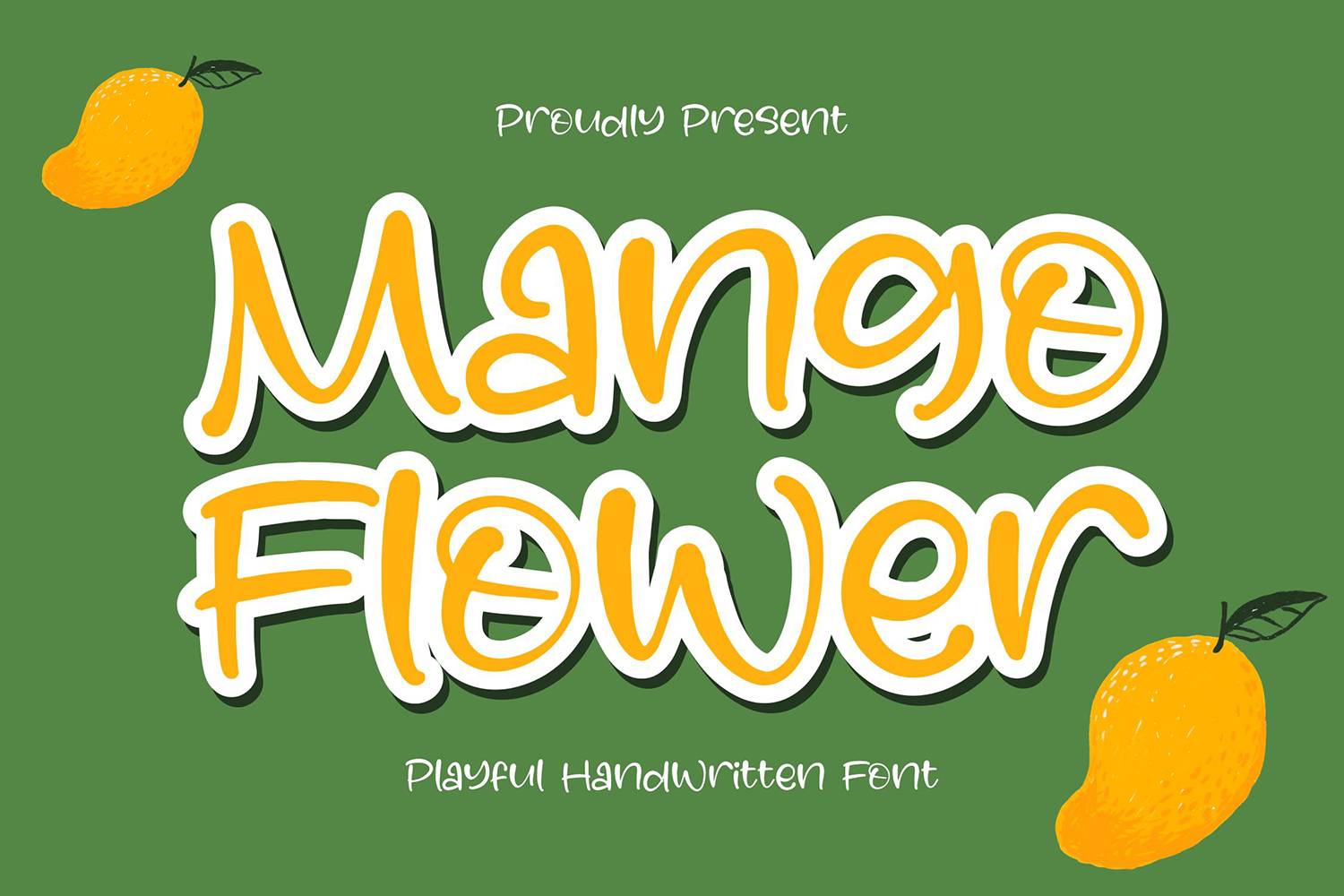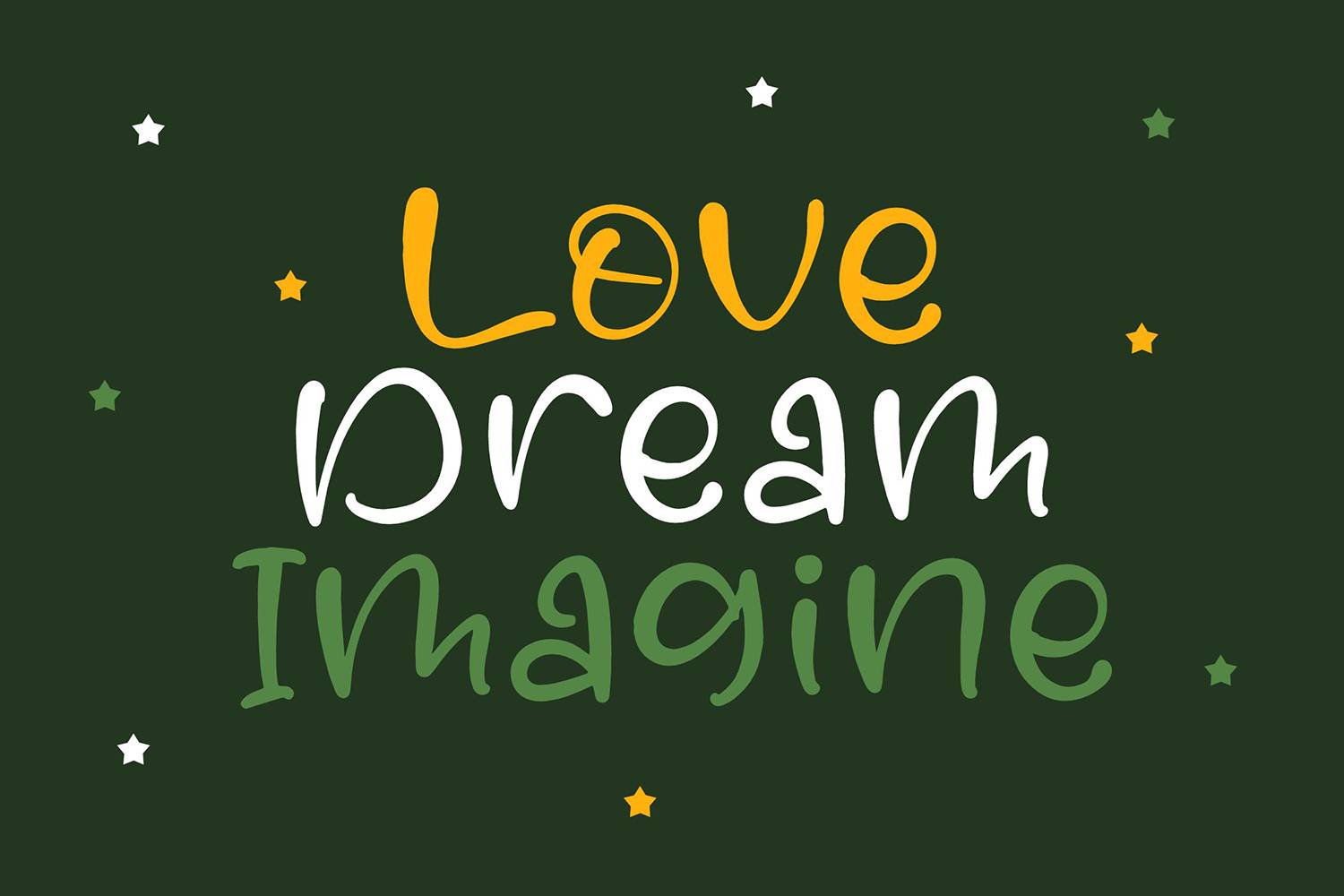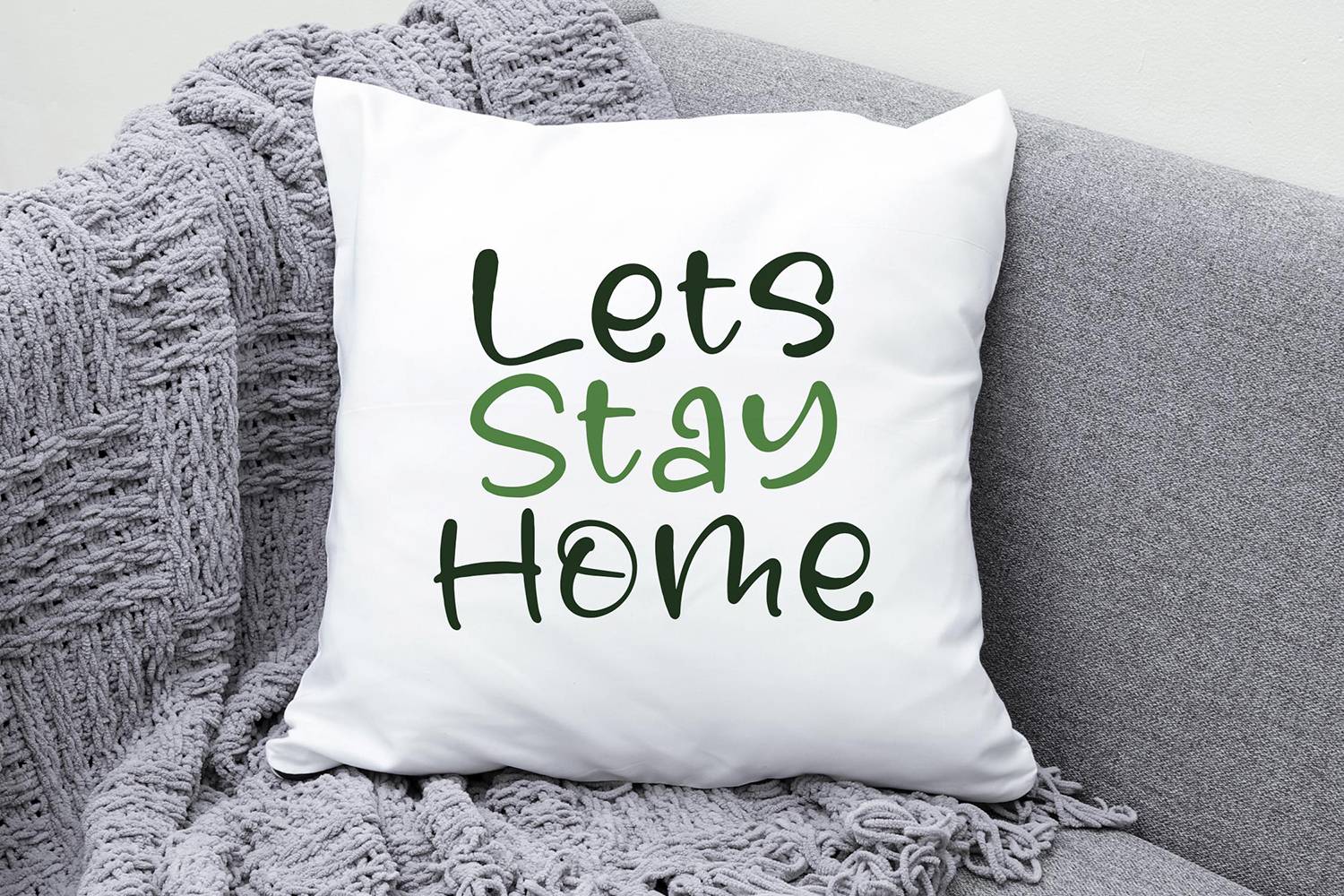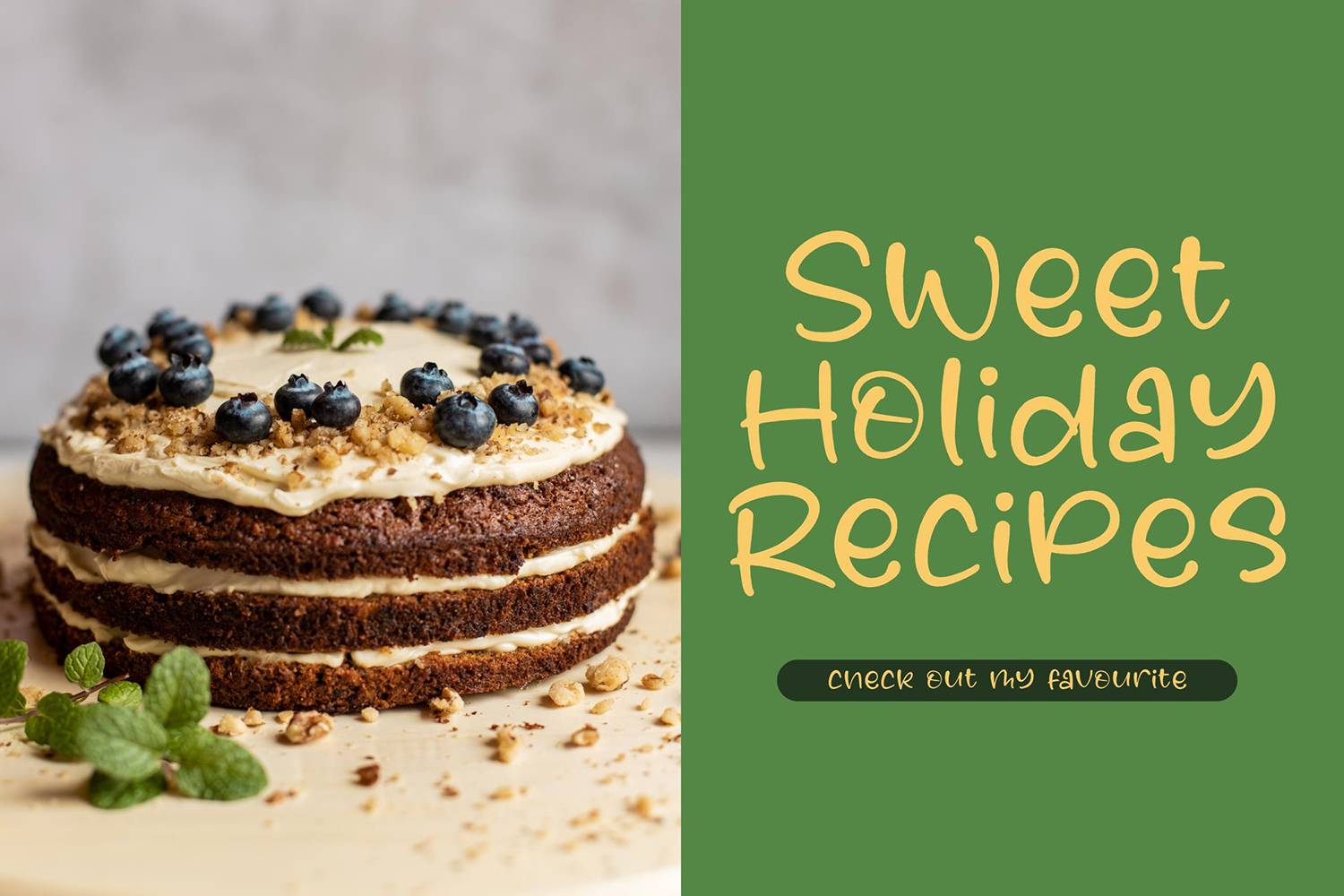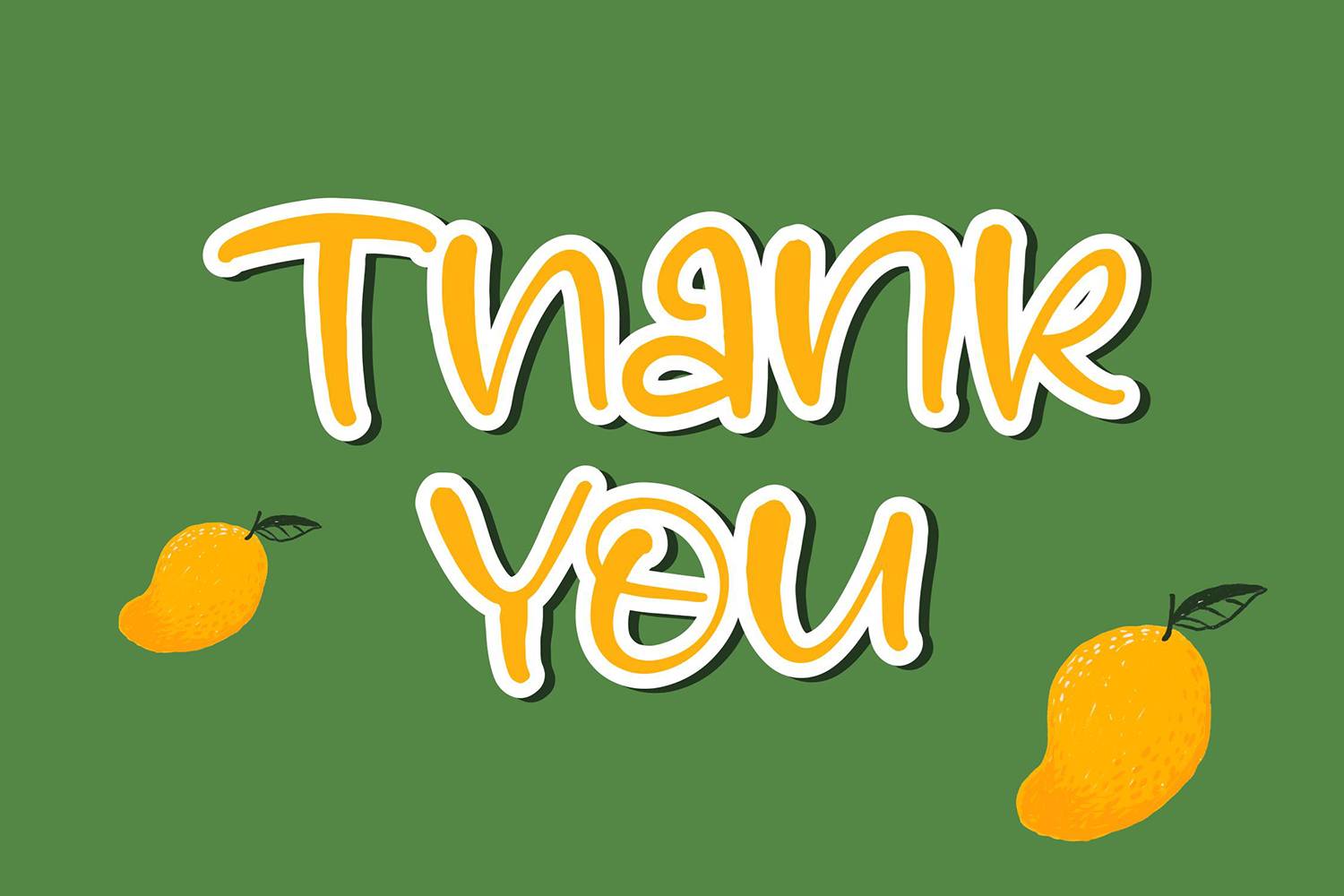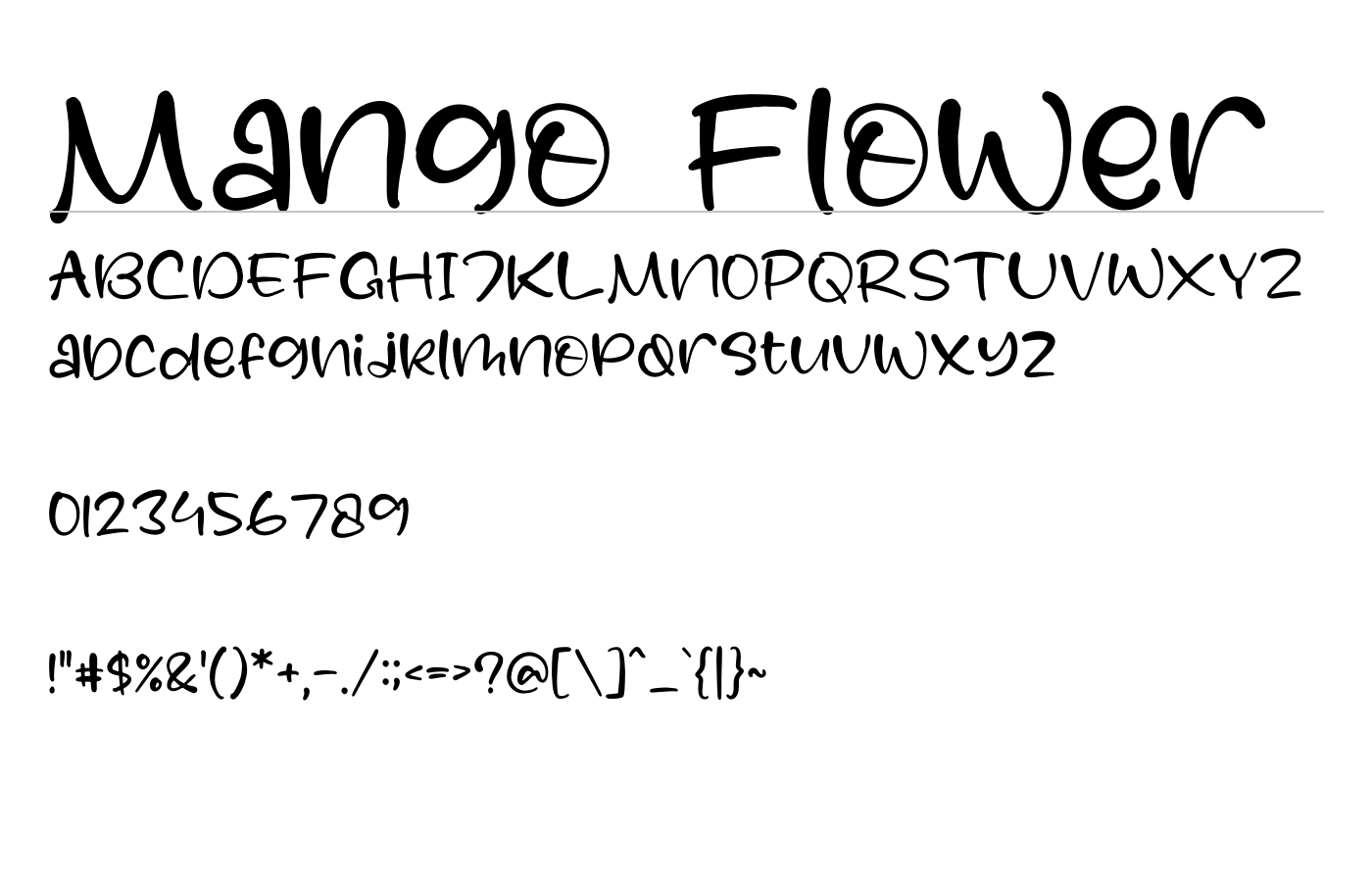
Mango Flower is a playful and casual handwritten sans serif font with a lively, organic feel. Its irregular strokes, open shapes, and charming quirks give it a friendly and approachable personality, making it ideal for creative projects, informal branding, and fun, youthful designs. This font works well in logos, invitations, and editorial layouts where a personal, hand-crafted touch is desired.
Mango Flower Font
About Mango Flower Font